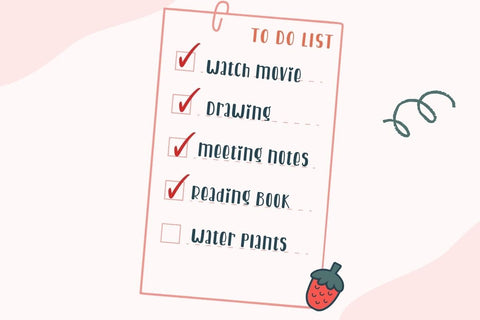
Gnome Summer - Display Font
Gnome Summer is a delightful handwritten font with multilingual support for English, Spanish, French, German, Portuguese, and Italian. It is versatile and can be used for note-taking, diary writing, or creating greeting cards, tote bags, mugs, and more.